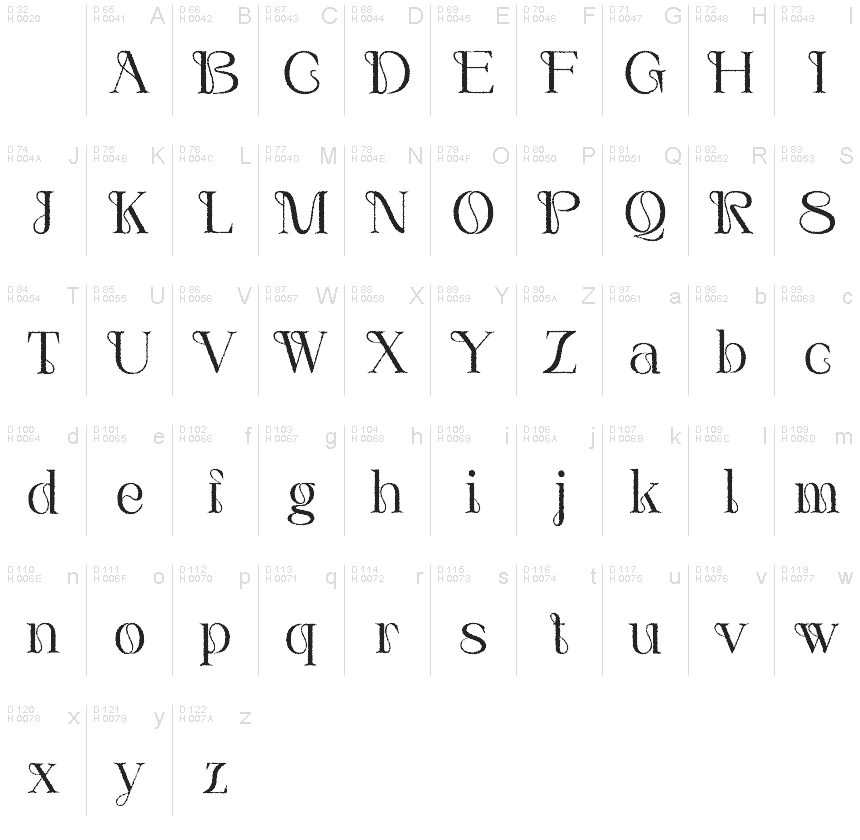
Varelle Rough Demo Regular
Varelle Rough font by Craft Supply Co is a free serif font with grunge textures all around. The distressed appearance makes it unique and fits the character set in a vintage style while featuring decorative elements and evoking nostalgia. Each stroke presents a slightly unpredictable width which transforms this serif to look almost like a human handwriting font.
Any project that uses Varelle Rough will look unusual to the viewer, thus grabbing their attention. Use it for branding, packaging designs, advertisements, posters, event cards, promotions, banners, brochures, magazines, stationery, and all other print/web material targeting audiences that care about trends and fashion.